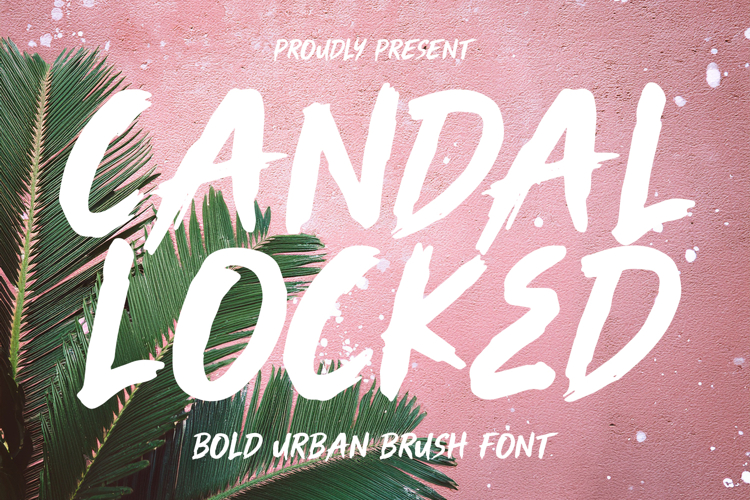
Candal Locked is a high energy, hand drawn brush font designed to make a statement. With its aggressive strokes and authentic dry brush textures, this font captures a raw, street style aesthetic. It is perfectly suited for bold branding, music, and summer themed social media graphics. Whether you are aiming for a gritty urban look or a vibrant tropical splash, Candal Locked delivers a powerful, fearless personality to any creative project.